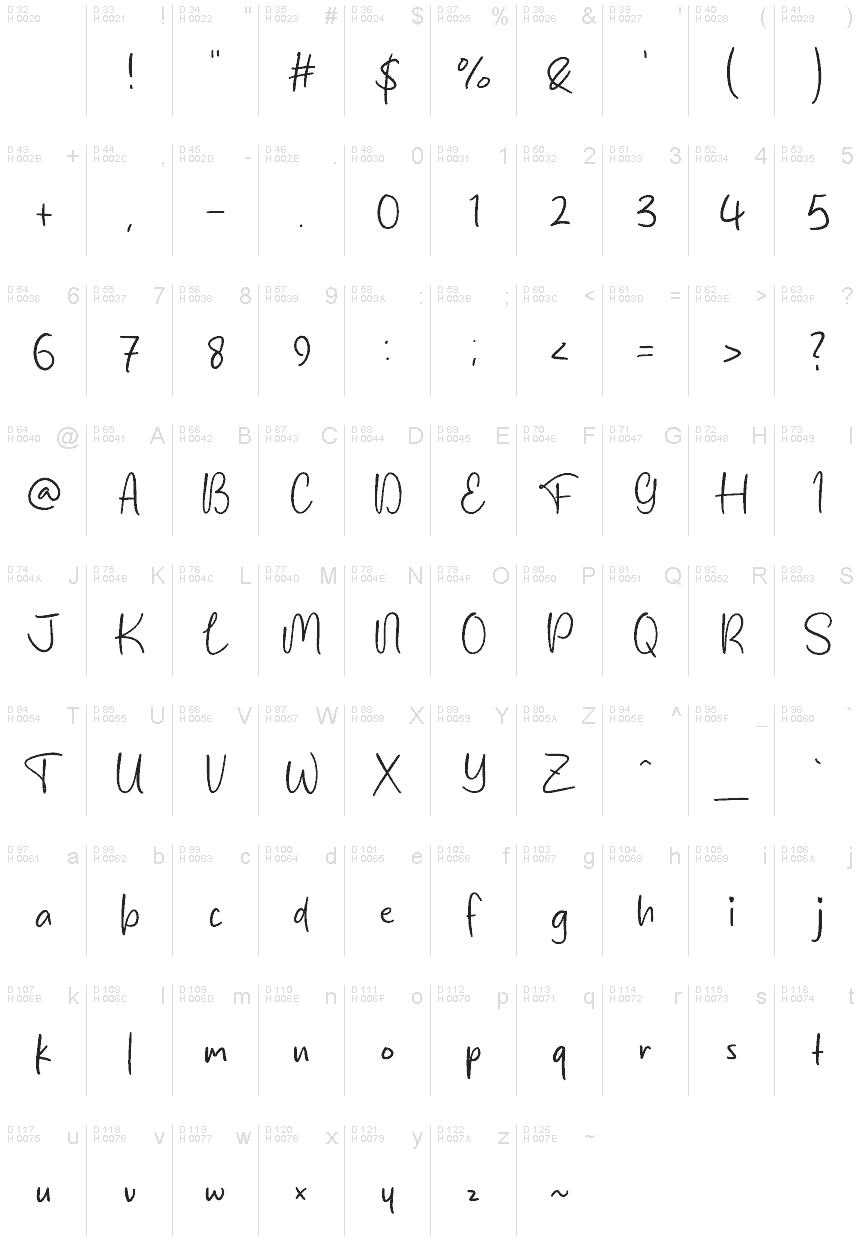
Valentine Girls
Valentine Girls font from MJType is a free handwritten font with a casual style, charming aesthetic, and modern feel. The playful capital and lowercase letters, striking numbers, and fascinating punctuation marks pay homage to the beautiful craft of traditional calligraphy which allows users to portray an air of elegance through each and every character they use.
With interchangeable characters for a unique outcome whenever you use the font, make your concert posters, invitation cards for any event/occasion you like (weddings included), packaging projects for special holidays like Valentine’s day special, and lots more using this amazing font.